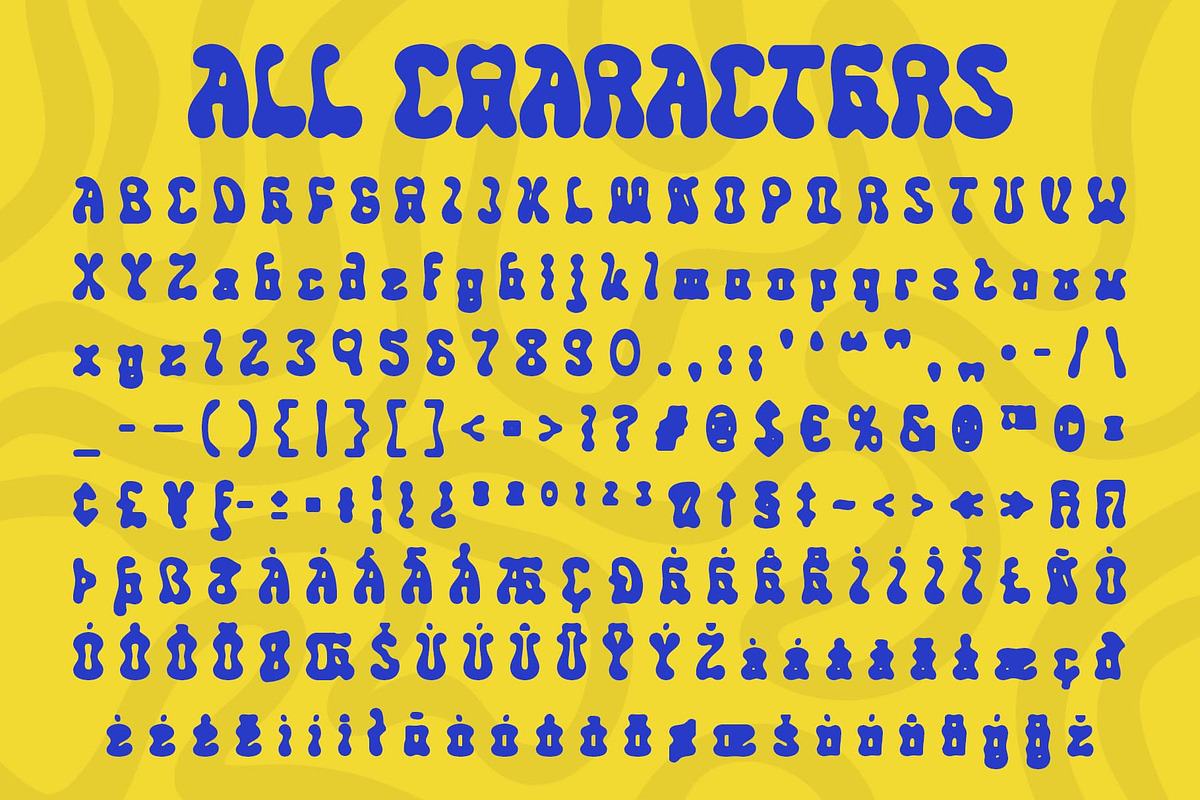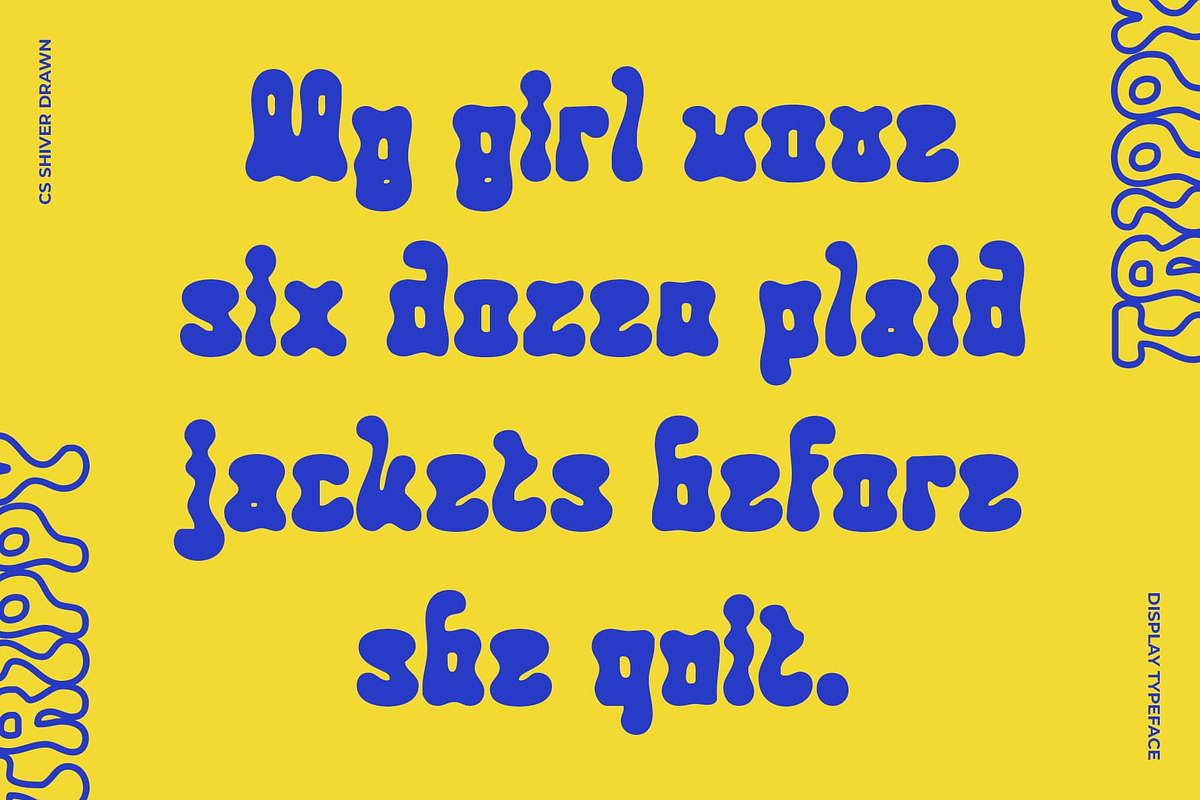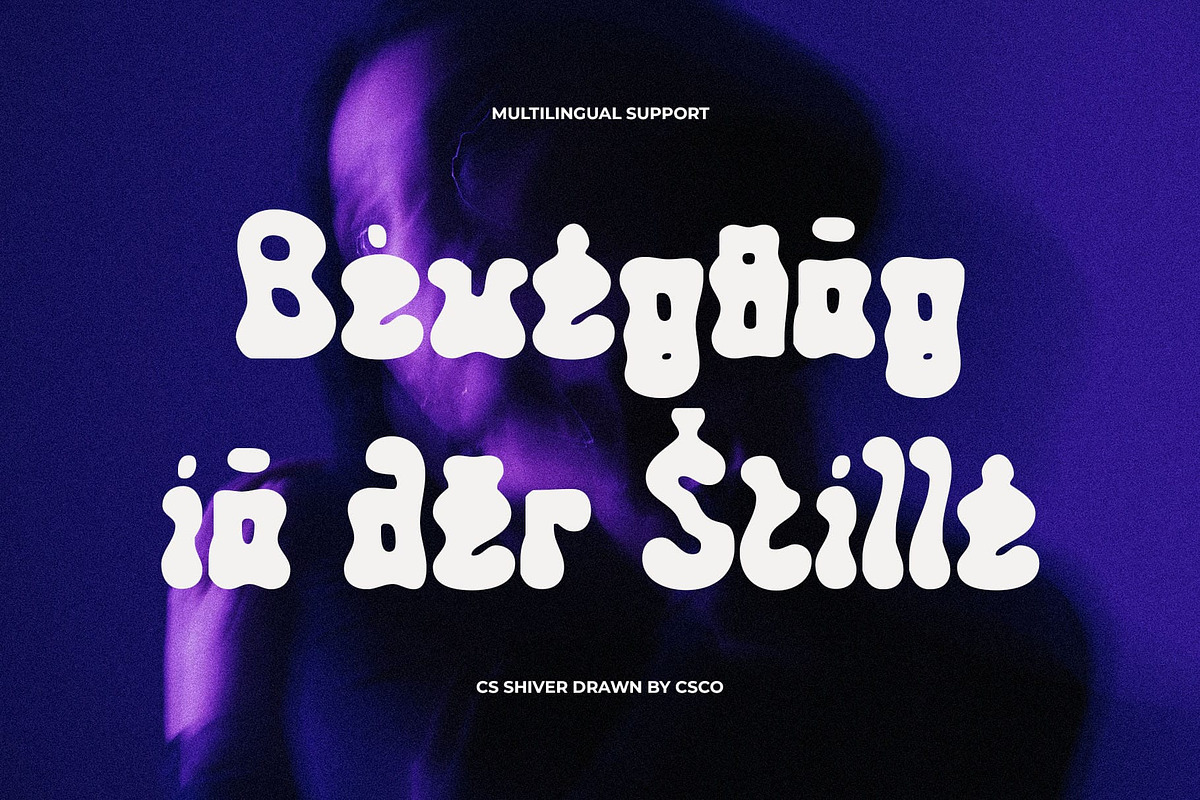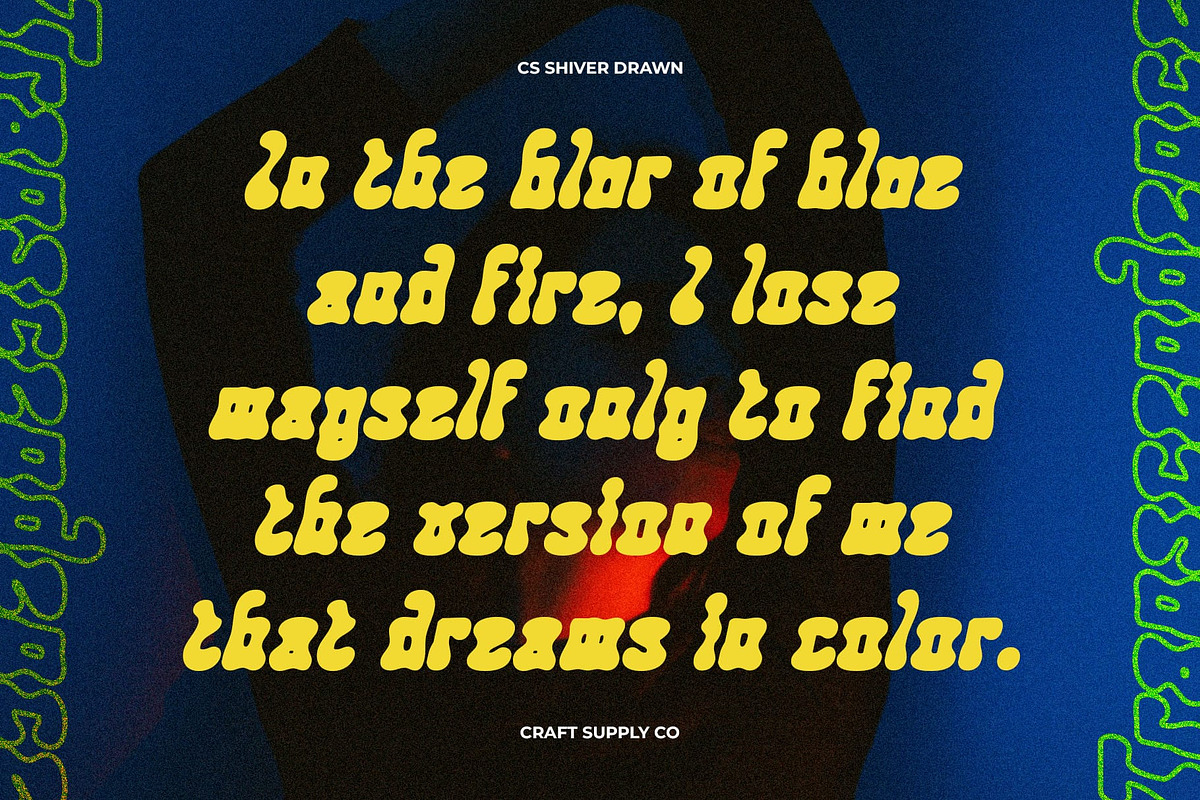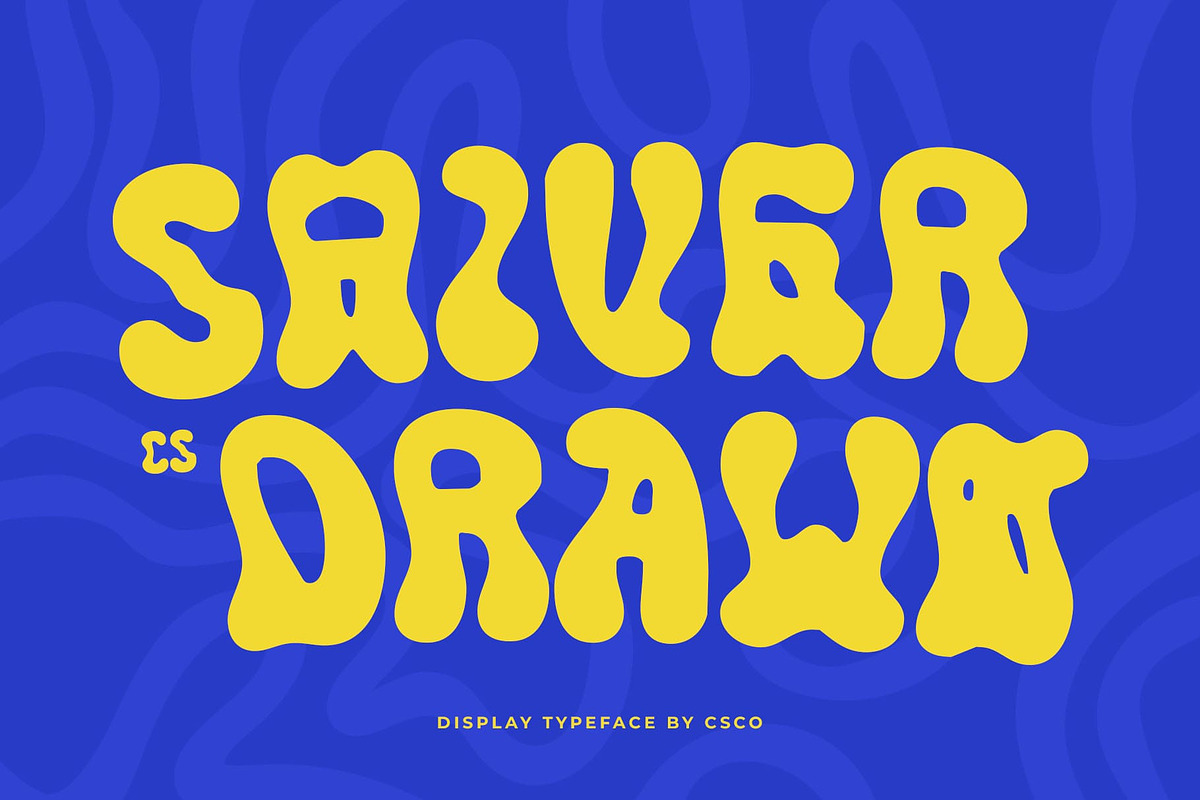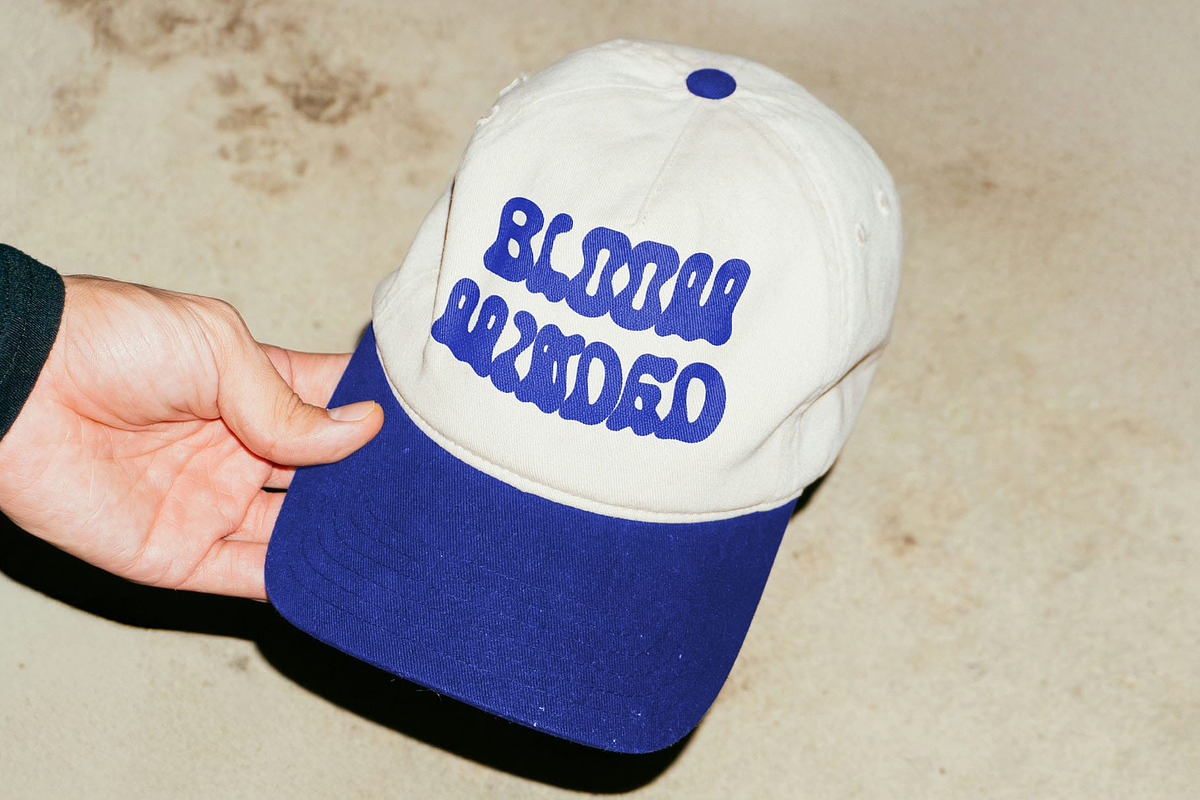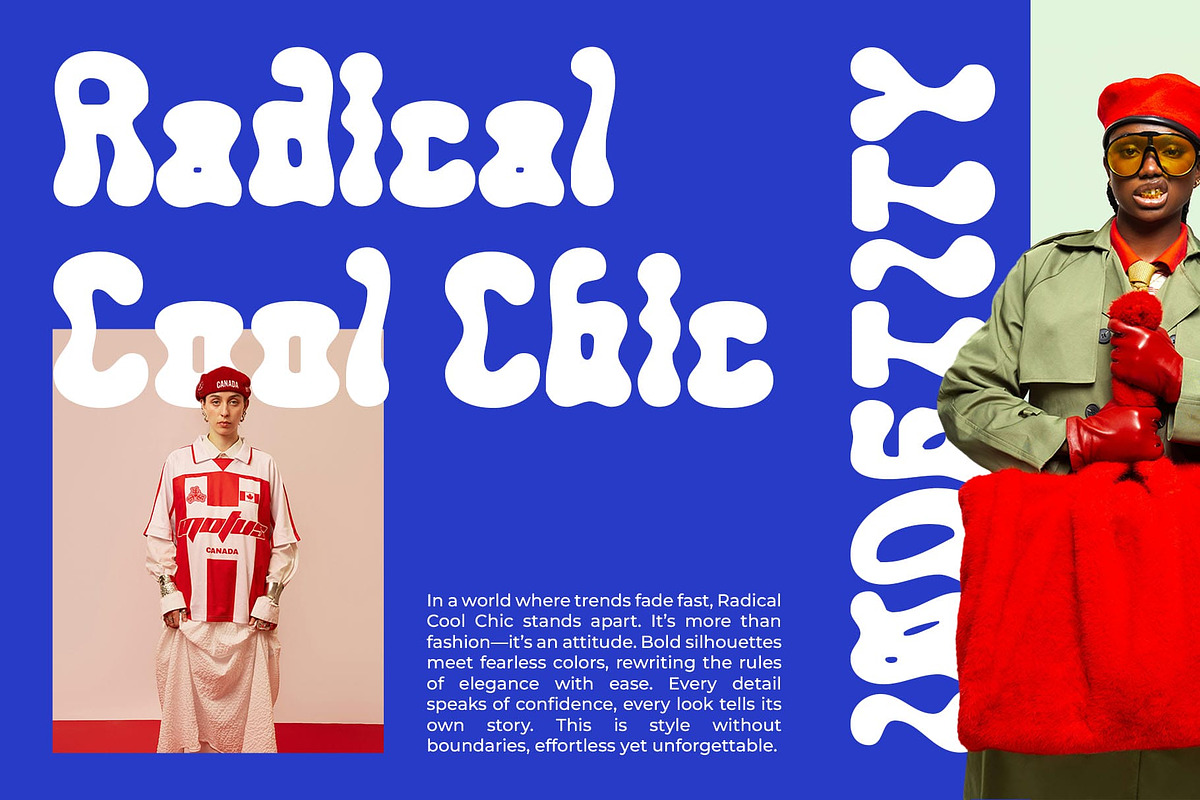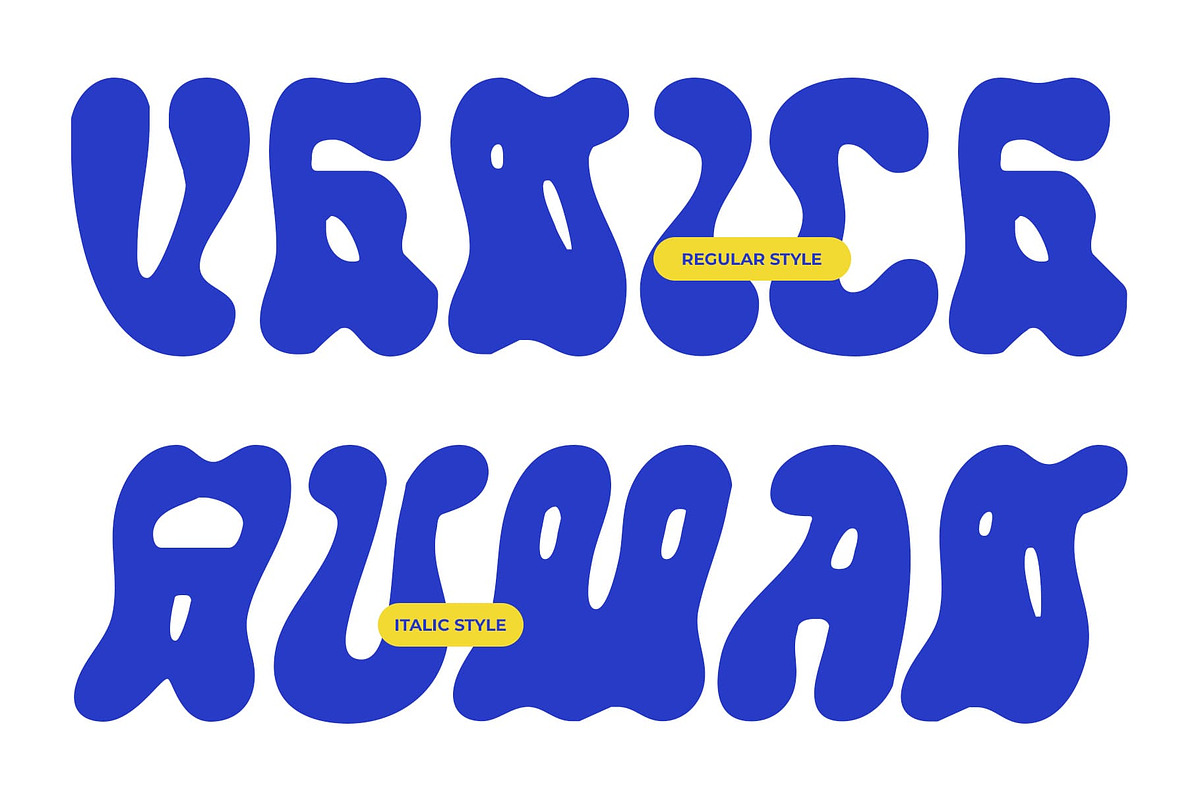
CS Shiver Drawn
CS Shiver Drawn – Psychedelic Display Font with Funky Hand-Drawn Energy and Experimental Curves
Dynamic and Funky Lines CS Shiver Drawn is a psychedelic display font built on bold, dynamic lines and unconventional curves. Its experimental letterforms break away from traditional structures, creating a lively and imaginative aesthetic that instantly grabs attention.
Artistic Hand-Drawn Texture The drawn finish adds a handcrafted quality, infusing every letter with vibrancy and movement. This texture gives the font depth and personality, making it feel less like a digital typeface and more like a piece of living art. It’s playful, funky, and endlessly creative.
Curves Full of Expression Designed with sweeping curves and irregular forms, CS Shiver Drawn thrives on expressive individuality. Its shapes bend and flow in unexpected ways, echoing the spirit of psychedelic art while staying versatile for modern design applications.
Perfect for Music and Creative Branding Whether for music posters, album covers, funky editorials, or imaginative branding, CS Shiver Drawn radiates energy and fun. It’s the ideal choice for designers who want to inject bold personality and artistic flair into their work while embracing a playful, psychedelic style.